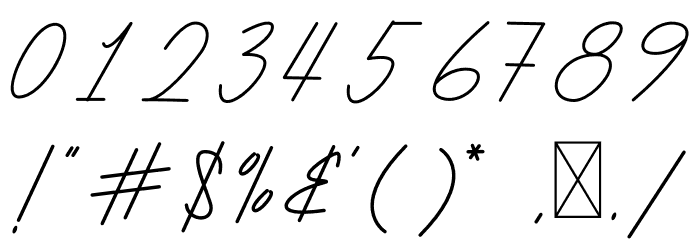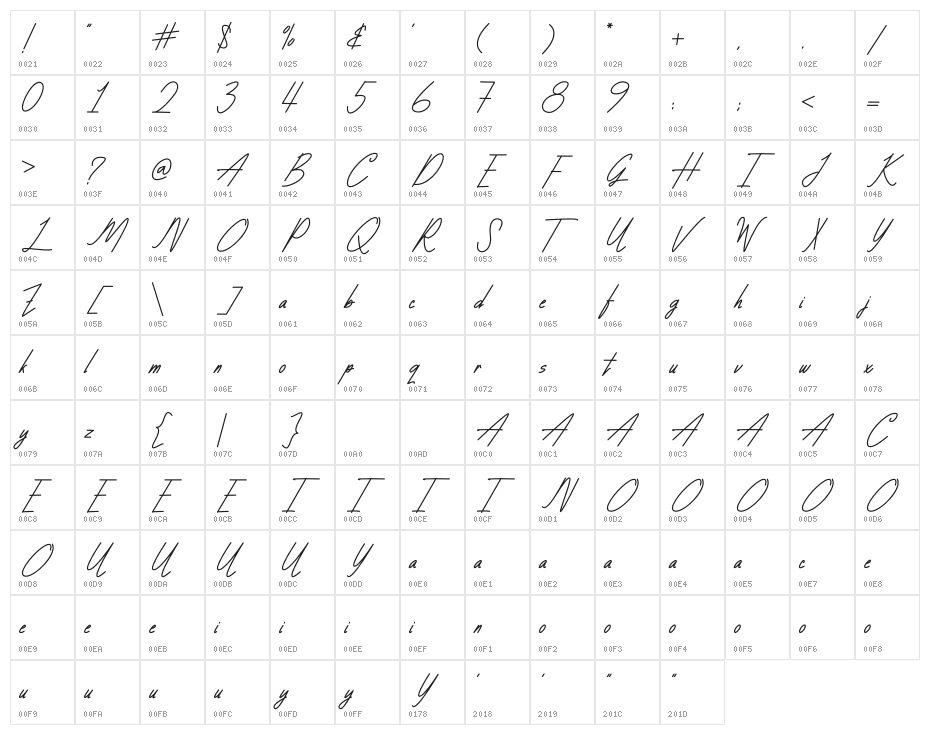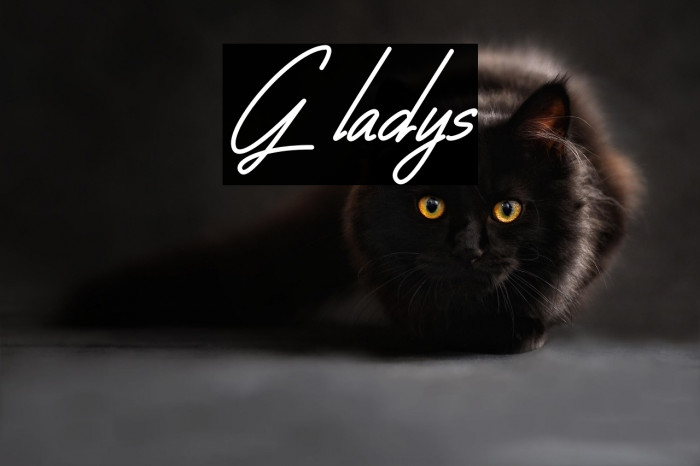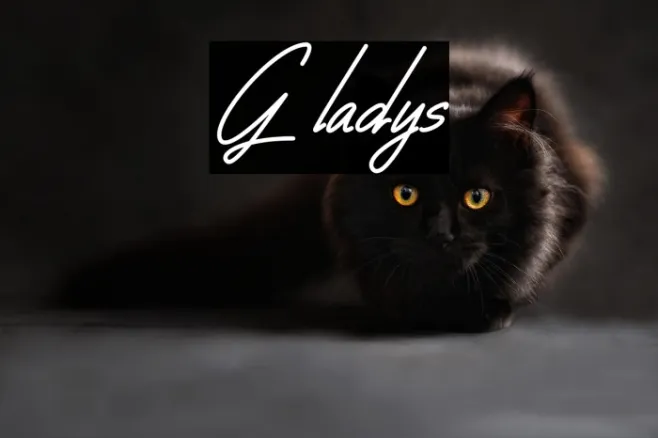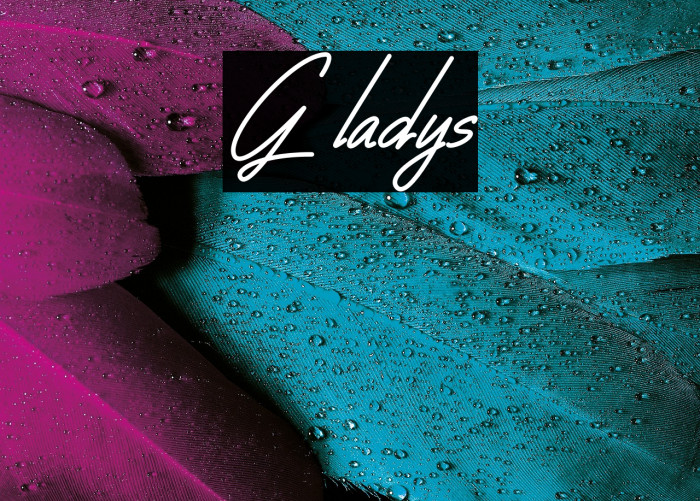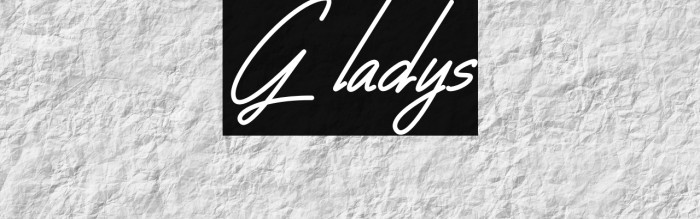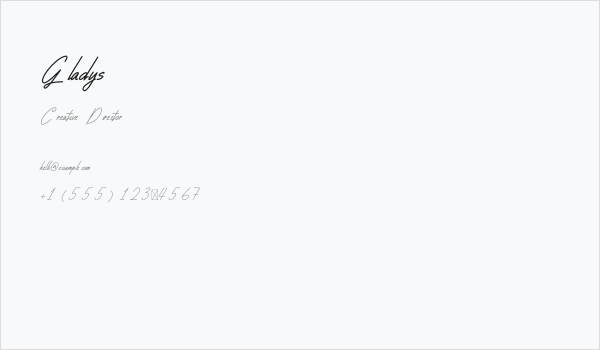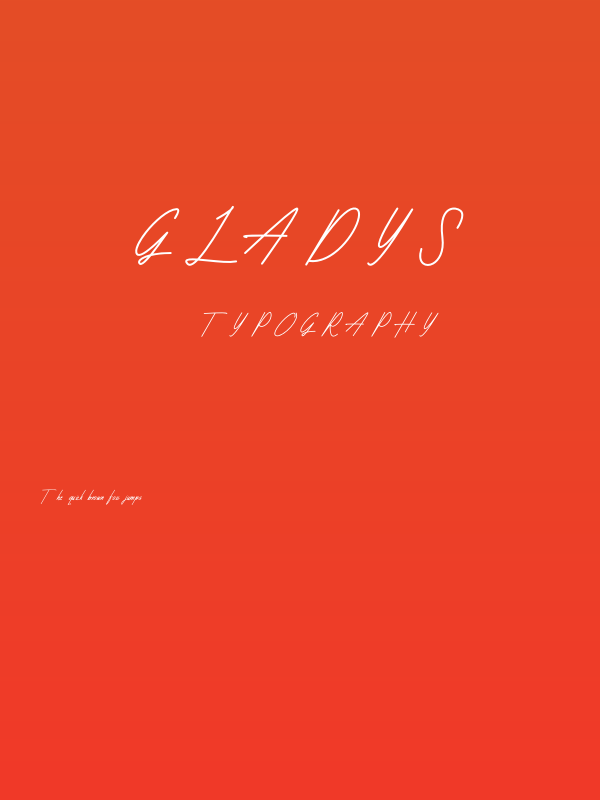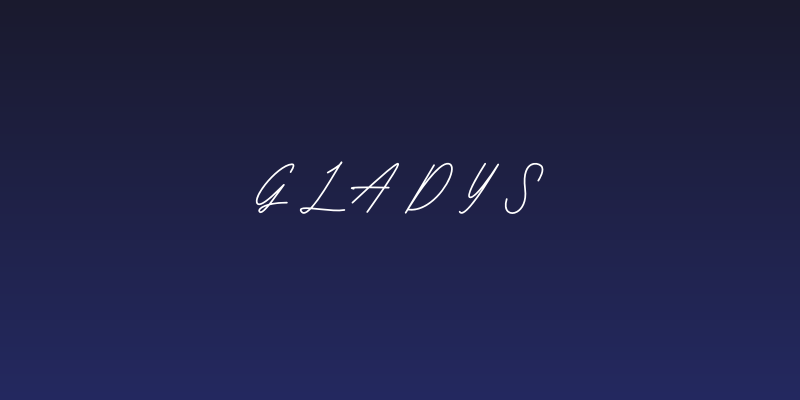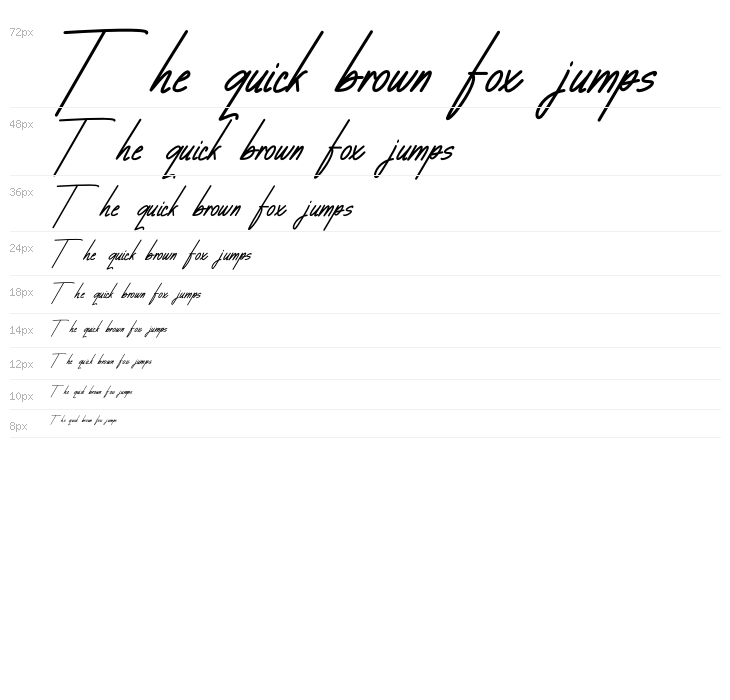
Gladys Font
Gladys Description
This elegant script font features a fluid and graceful design, with each letter seamlessly connecting to the next. The uppercase letters are tall and slender, exuding a sense of sophistication and style. The lowercase letters maintain a consistent flow, with smooth curves and delicate loops that enhance its cursive nature. The numerals are clear and easy to read, matching the overall aesthetic of the font. Special characters are thoughtfully designed to complement the script style, making it versatile for various uses. The font's refined appearance makes it suitable for formal invitations, elegant branding, and stylish headlines.
| Use Case | Invitations, Branding, Headlines |
| Proposed Projects | Ideal for wedding invitations, elegant branding, stylish headlines, and personal stationery. |